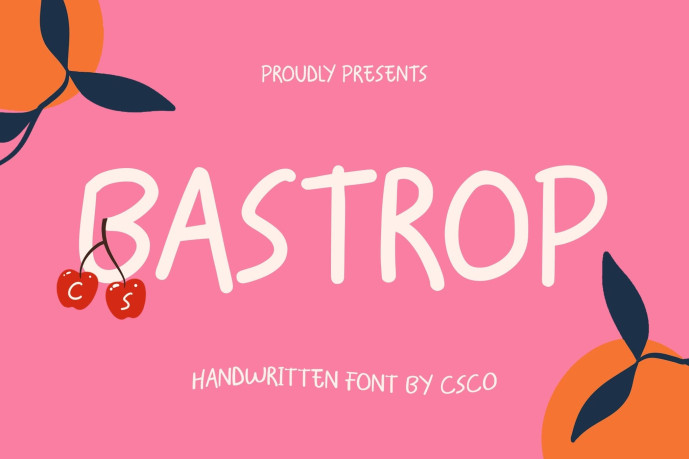
Bastrop – Cute Handwritten Font
Designer: craftsupplyco
CS Bastrop Cute Handwritten Font This is a cute handwritten sans serif font that radiates charm and cheerfulness in every stroke. With its rounded shapes and smooth, friendly lines, this font captures a sense of warmth and approachability. Designed to evoke smiles, brings an inviting and joyful character to any project that celebrates creativity and fun.
Rounded Shapes for a Friendly Feel The rounded forms and soft edges of this font give it a friendly, approachable personality. Each letter feels natural and hand-drawn, adding a touch of spontaneity and joy to your typography. This makes it perfect for designs aimed at children, families, or audiences seeking a lighthearted, human touch.